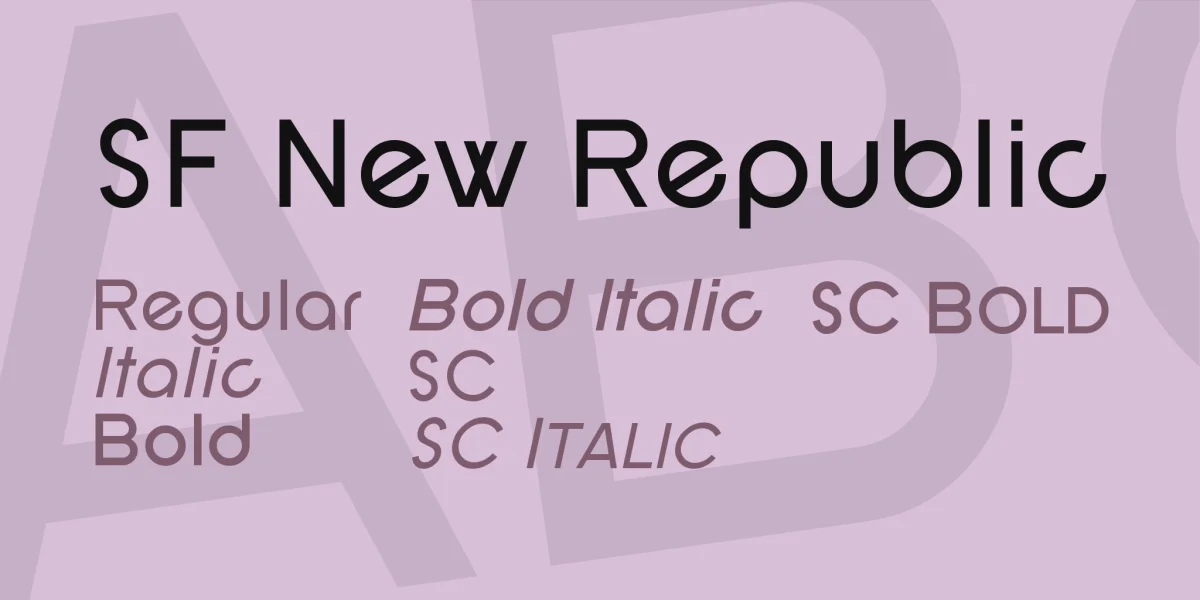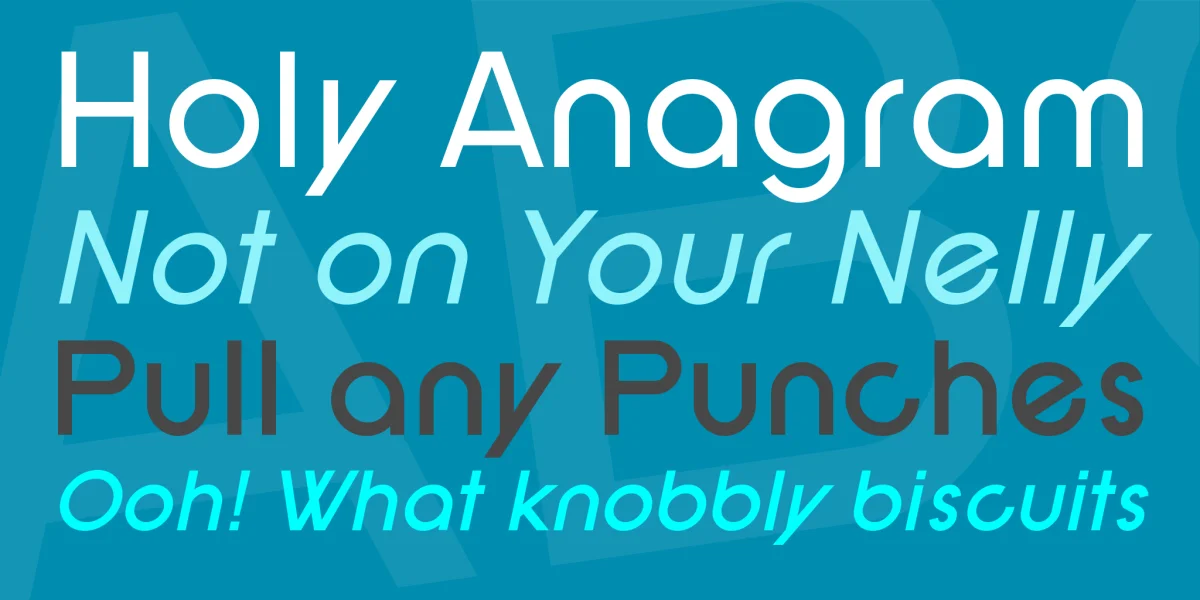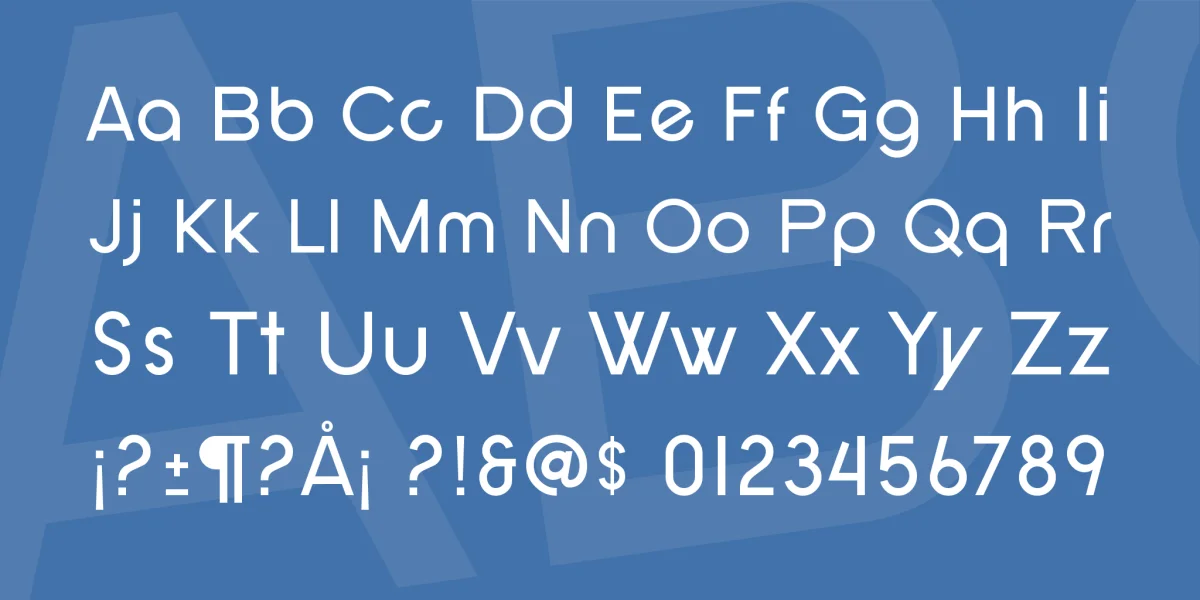
A new and modern variation of SF Old Republic, SF New Republic contains lowercase and uppercase letters, numbers, punctuation, and accented characters.